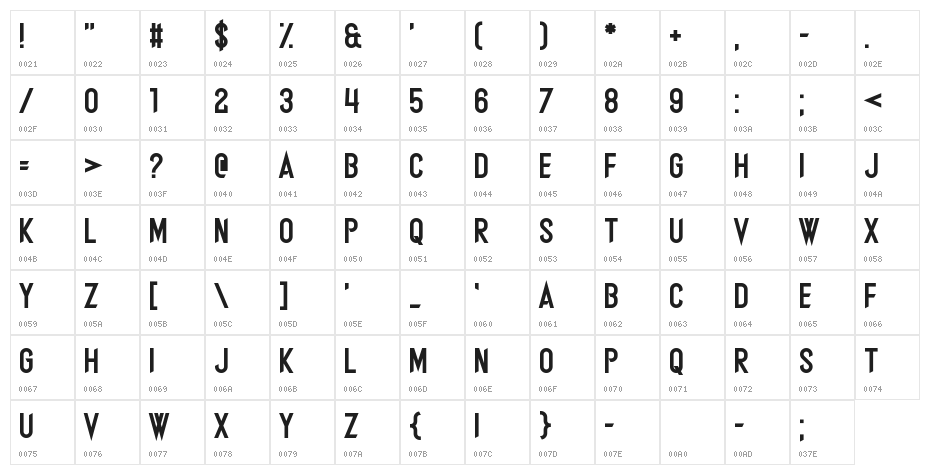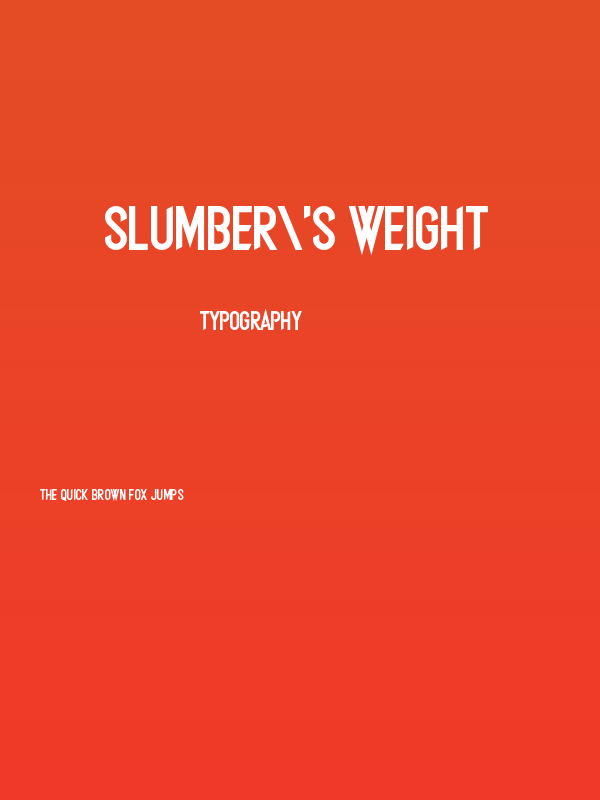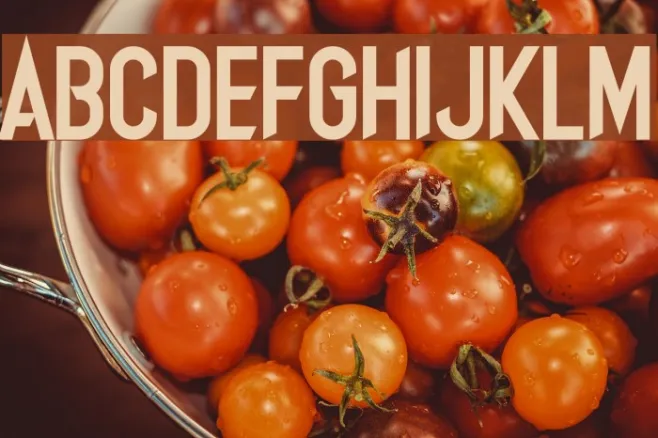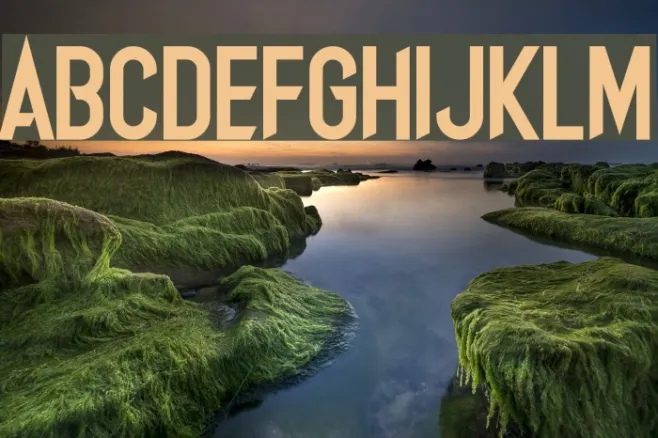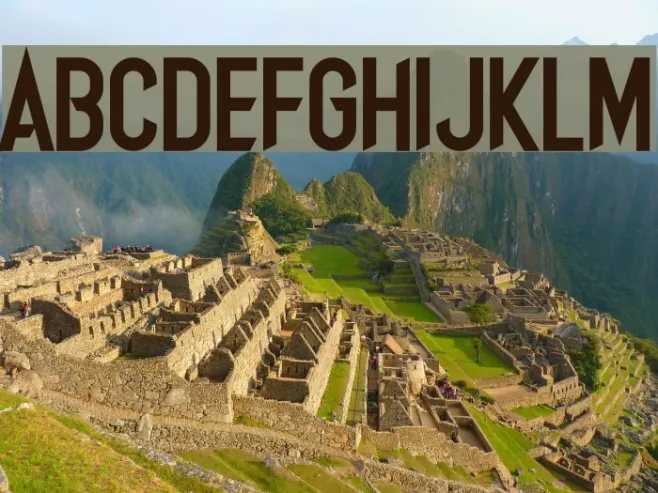
Slumber's Weight Font
Slumber's Weight Description
This font features bold, geometric letterforms with a strong presence. The uppercase letters are uniform in height, creating a cohesive and structured appearance. The strokes are thick and consistent, contributing to a sense of stability and confidence. The numerals and special characters maintain the same boldness, ensuring uniformity across all characters. The design is modern and assertive, making it suitable for impactful headlines and attention-grabbing displays.
| Proposed Projects | Ideal for branding, posters, headlines, and any design requiring a bold statement. |